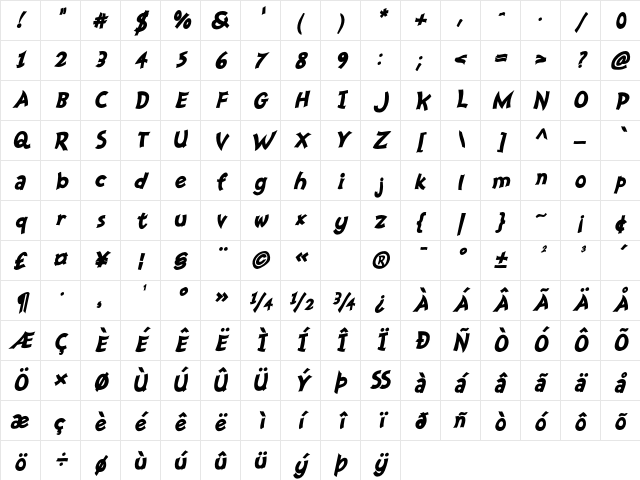
Complete Nanumunga Bold Oblique glyph index. Displaying only characters natively supported by Nanumunga Bold Oblique font.
Nanumunga Bold Oblique is a composed and adaptable typeface that performs quietly and consistently across a wide range of design contexts. The slanted form adds forward momentum and visual energy. Its bold stroke weight gives it real presence on the page.
Pro Tip: Use Nanumunga Bold Oblique for emphasis, pull quotes, and subheadings where its slanted energy can add rhythm to the layout.